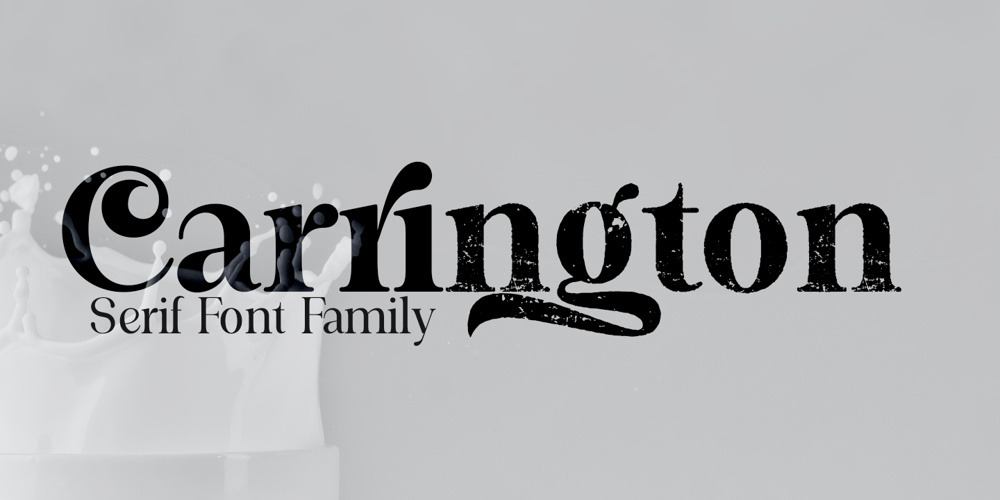
Carrington
Carrington font
Carrington Font Family was designed by Sai Poel and published by Groen Studio. Carrington contains 6 styles and family package options. Carrington is a contemporary Serif font, it comes in 6 family variants, the font has a strong and bold character, Carrington gives a clear and elegant look to logos, quotes, advertisements, and more. Carrington is a versatile typography filled with the character you want. with Marston you work. Carrington has standard styles, Stylistic Alternates and ligatures. and includes upper and lower case letters, numbers and punctuation marks.Carrington works great in any branding, logos, magazines, films. The different weights give you full range to explore a whole host of applications, while the outlined fonts give a real modern feel to any project.OpenType Features can be accessed by using OpenType smart programs such as Adobe Photo Shop, Adobe Illustrator, Adobe Indesign, Corel Draw and Microsoft Office. can also be accessed through the character map.